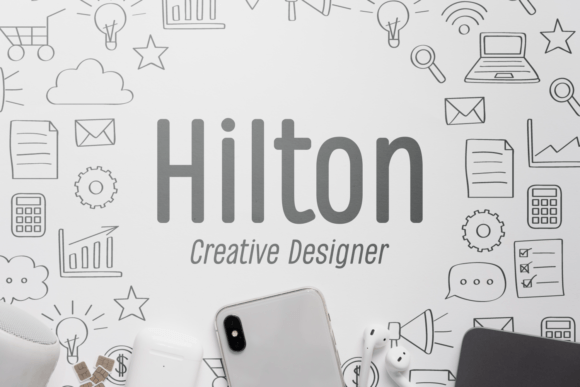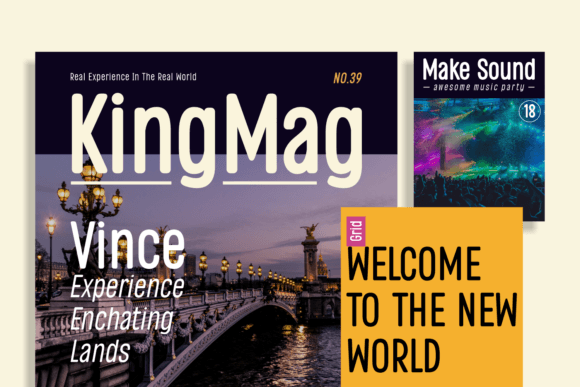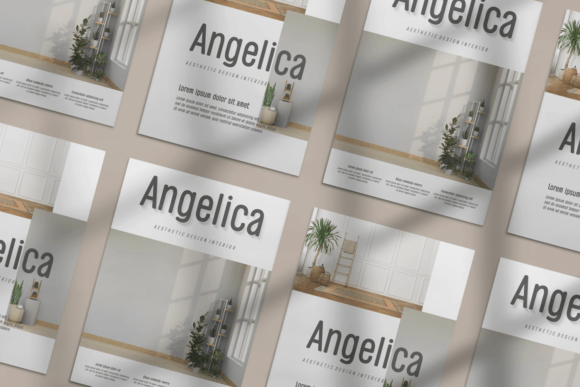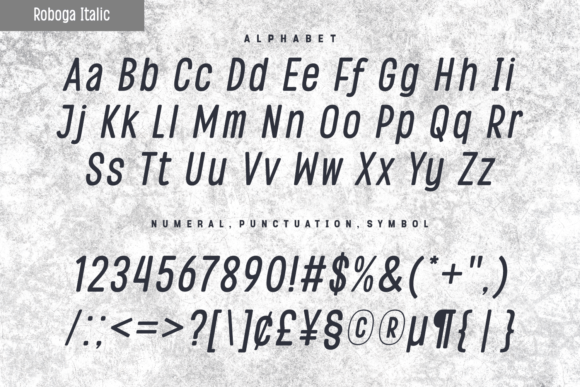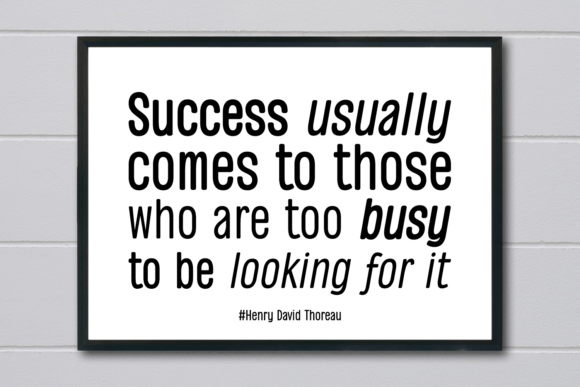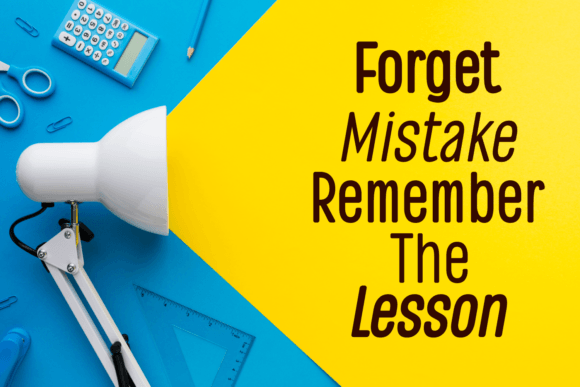
Introduction to Roboga Font
You know that feeling when you’re about to start a new creative project, and you’re browsing through your design resources, searching for the perfect font to bring your idea to life? It’s like being on the hunt for the missing piece of a puzzle. You want something that will elevate your design, make it stand out, and leave a lasting impression. That’s where the Roboga Font comes in – a classy and neat sans serif font that’s sure to take your design to the next level.
With its perfect blend of trendiness and sophistication, the Roboga Font is an incredible asset to any designer’s library. Whether you’re working on a free download project or a high-quality commercial design, this font has the potential to make a significant impact. Its versatility and modern feel make it an ideal choice for any creative project, and its transparent background allows for seamless integration with any design element.
- Unique, modern design that adds a touch of elegance to any project.
Honest Review: Roboga Font
As a designer, I’m always on the lookout for high-quality design resources to elevate my creative projects. The Roboga Font has caught my attention, and I’m excited to share my thoughts on it.
- ✨ Unique and modern design aesthetic that adds a touch of sophistication to any design project.
- ⚠️ Limited font sizes and styles available, which may limit its versatility in certain design projects.
Overall, the Roboga Font is a great addition to any designer’s toolkit. While it may have some limitations, its unique design and high-quality files make it a valuable resource for any creative project. I would definitely recommend it to designers looking for a fresh and modern font to add to their collection.
The Roboga Font is ideal for various design projects, including logos, business cards, and social media graphics. Its high-quality design and transparent background make it a versatile design resource for any creative project.